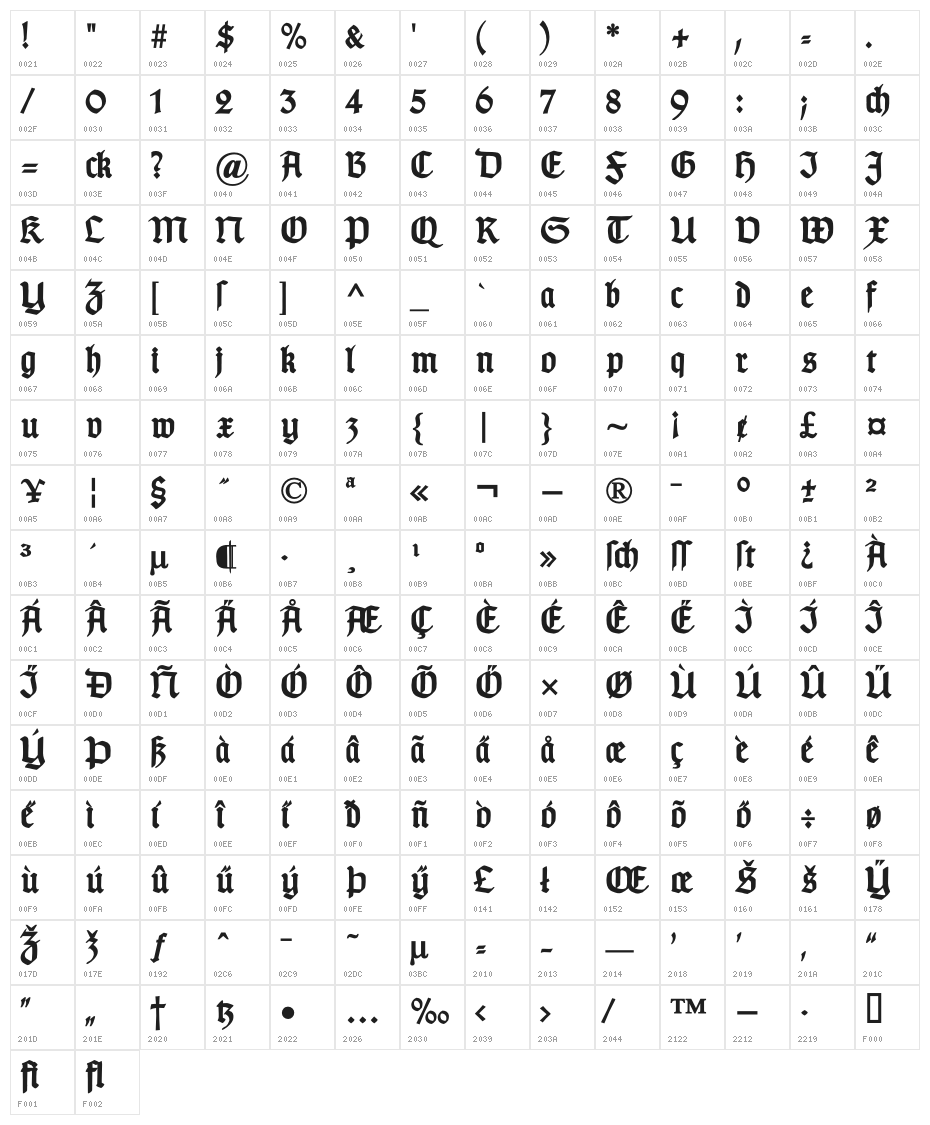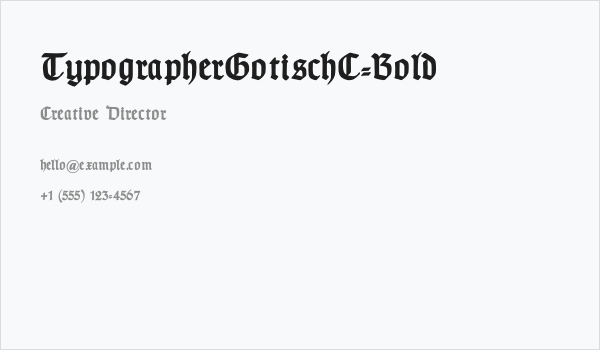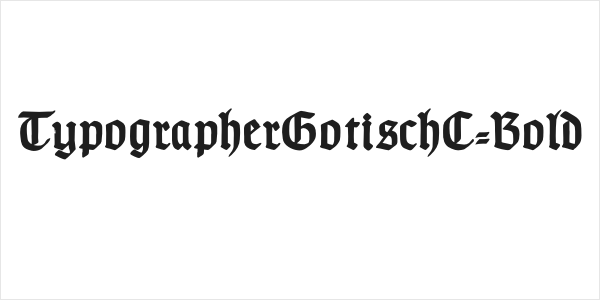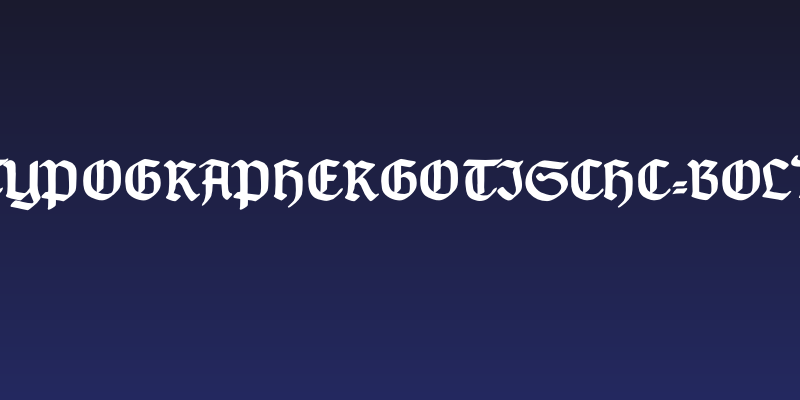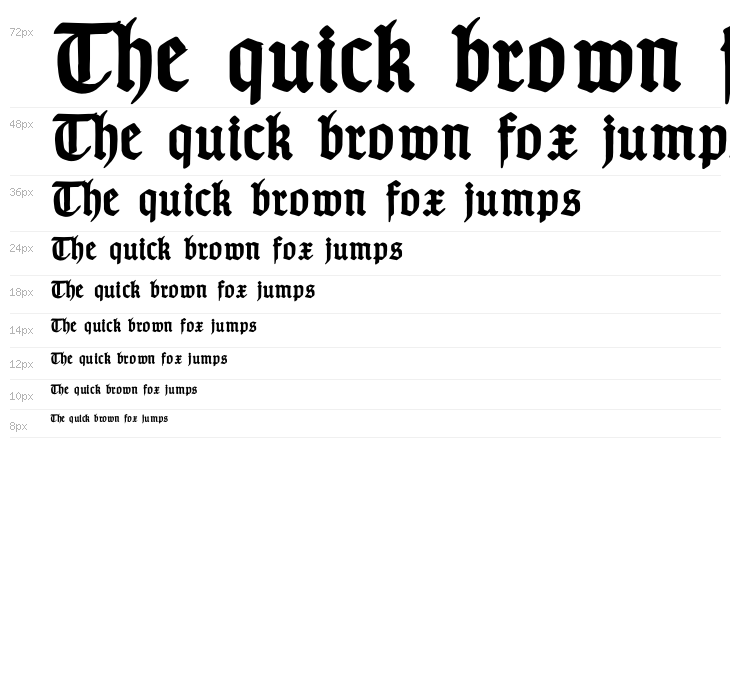
TypographerGotischC-Bold Font
TypographerGotischC-Bold Description
This font exhibits a traditional blackletter style, characterized by its intricate and ornate letterforms. The strokes are bold and pronounced, with sharp angles and a distinct medieval aesthetic. The uppercase letters are particularly elaborate, featuring dramatic flourishes and pointed serifs. The lowercase letters maintain the same level of detail, with consistent stroke thickness and angularity. Numerals and special characters are designed to match the overall gothic theme, ensuring a cohesive appearance across all glyphs. This font is ideal for projects that require a historical or formal tone, such as invitations, certificates, or branding for luxury products.
Overall StyleVintage
Use CaseHeadlines, Logos, Decorative text
Proposed ProjectsIdeal for historical documents, formal invitations, luxury branding, and decorative headlines.